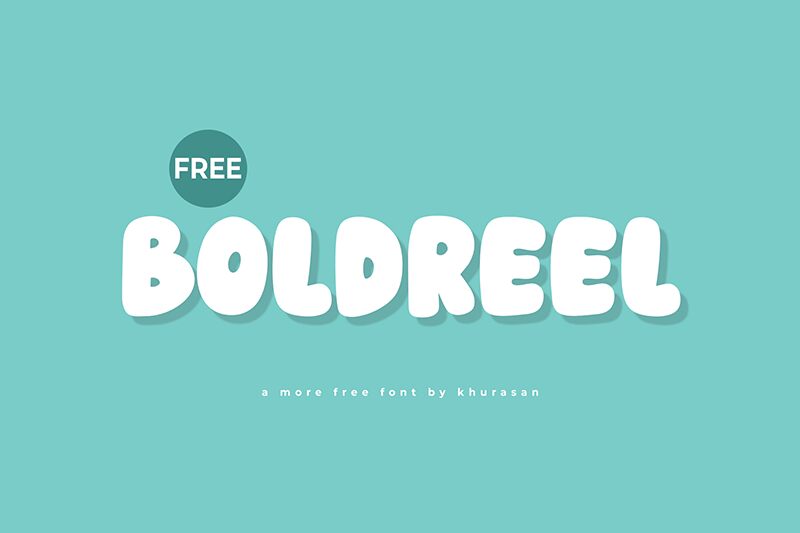
Boldreel
Boldreel font is a cartoon display font built with emphasis on boldness. It’s the work of Khurasan who aimed at developing an exaggerated typeface with a grotesque look and feel. The letters don’t fail to meet expectations and indeed appear unusual in height and other dimensions. However, this unique look is what sets them apart from the rest turning them into perfect candidates for most graphic design projects.
The free cartoon font works wonders for posters, book covers, magazine cover pages, packaging designs, branding projects, movie titles, quotes, YouTube covers and thumbnails etc.